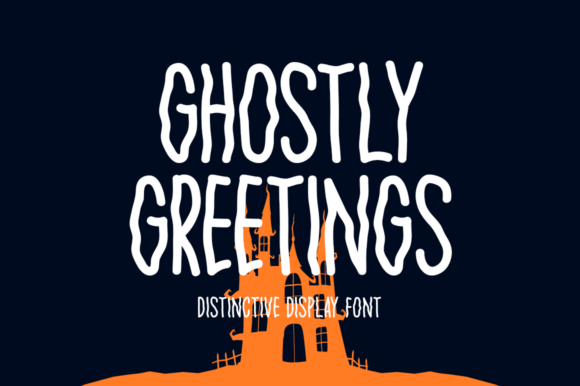
Ghostly Greetings Font: The Ultimate Display Font for Spooky Charm
As the spookiest time of the year approaches, designers and creatives are on the lookout for fonts that capture the essence of Halloween. Look no further than Ghostly Greetings, a truly unique display font that embodies the spirit of the season. With its whimsical design and versatility, this font is perfect for a wide range of applications, from stationery and logos to t-shirts and print materials.
Unleash Your Creativity with Ghostly Greetings
Ghostly Greetings stands out from the crowd with its distinctive and eye-catching design. This display font is carefully crafted to add a touch of spooky charm to any creative project. Whether you’re designing website headers, photo frames, or eye-catching flyers, this font is sure to make your project stand out. Its unique and playful style is ideal for music covers, posters, and image sliders, making it a versatile addition to your font collection.
The Perfect Font for Halloween-Themed Projects
Halloween is a time for creativity and self-expression, and Ghostly Greetings is the perfect font to help you bring your ideas to life. Its spooky yet whimsical design is sure to capture the attention of your audience and leave a lasting impression. Whether you’re creating invitations, decorations, or promotional materials, this font is sure to add a touch of Halloween magic to your project.
Key Features of Ghostly Greetings Font
- Unique and Whimsical Design: Ghostly Greetings boasts a distinctive and eye-catching design that’s perfect for adding a touch of spooky charm to your projects.
- Versatile and Multi-Purpose: This font is suitable for a wide range of applications, including stationery, logos, t-shirts, print materials, website headers, photo frames, and more.
- Perfect for Halloween-Themed Projects: Ghostly Greetings is specifically designed to capture the spirit of Halloween, making it the perfect choice for seasonal projects and promotions.
- Easily Customizable: This font is easy to customize, allowing you to adjust the size, color, and style to fit your project’s needs.
Applications of Ghostly Greetings Font
Ghostly Greetings is an incredibly versatile font that can be used in a variety of creative projects. Here are some ideas to get you started:
- Stationery and Invitations: Add a touch of spooky charm to your Halloween invitations, party decorations, and stationery with Ghostly Greetings.
- Logos and Branding: Use this font to create unique and memorable logos for your Halloween-themed business or project.
- T-Shirts and Merchandise: Design eye-catching t-shirts, hoodies, and other merchandise with Ghostly Greetings.
- Print Materials: Use this font to create eye-catching flyers, posters, and brochures for your Halloween events or promotions.
- Website Headers and Sliders: Add a touch of spooky charm to your website headers and sliders with Ghostly Greetings.
Tips for Using Ghostly Greetings Font
To get the most out of Ghostly Greetings, here are some tips to keep in mind:
- Experiment with Different Sizes and Colors: Play around with different font sizes and colors to find the perfect combination for your project.
- Pair with Other Fonts: Combine Ghostly Greetings with other fonts to create a unique and visually appealing design.
- Use on Dark Backgrounds: Ghostly Greetings looks stunning on dark backgrounds, so don’t be afraid to experiment with different background colors.
Ghostly Greetings is a truly unique and versatile display font that’s perfect for adding a touch of spooky charm to your creative projects. With its whimsical design and wide range of applications, this font is sure to become a staple in your font collection. Whether you’re designing Halloween-themed projects or simply looking for a font that stands out from the crowd, Ghostly Greetings is the perfect choice.
Get Ready to Cast a Spell with Ghostly Greetings